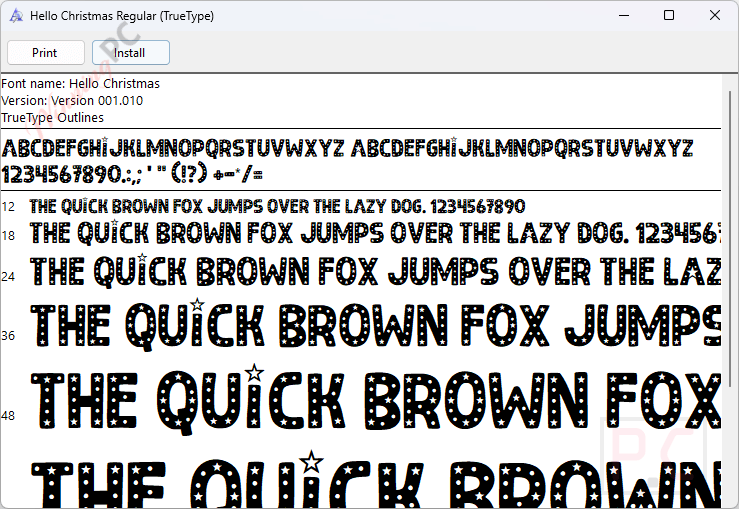
What is the Most Popular Kids Font Bundle?
The Most Popular Kids Font Bundle from Creative Fabrica features 52 Premium fonts, valued at $1,034, that you can download for free now. This bundle includes a variety of charming, child-friendly fonts that are perfect for storybooks, comics, birthday invitations, coloring pages & more. It will help teachers, designers, or parents create cheerful, engaging projects that kids will love. Don’t miss your chance to explore the unique & eye-catching fonts to highlight the value of your text content.